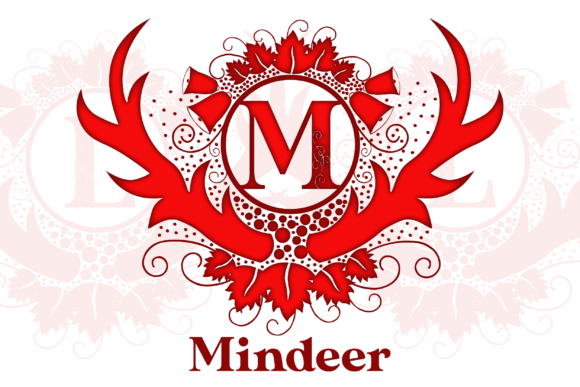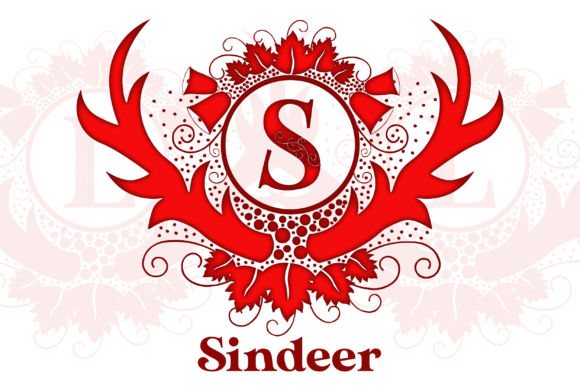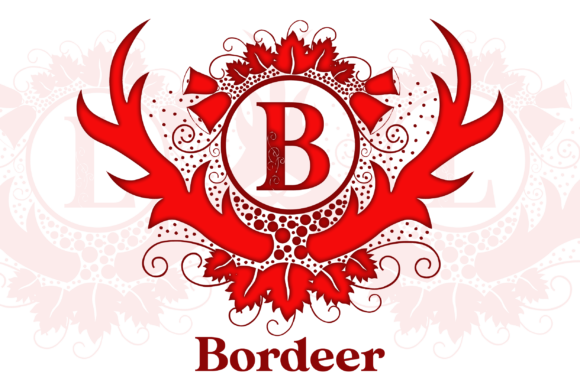
Introduction to Lendeer Font
Lendeer is a festive and highly detailed decorative font, with characters that resemble the antlers of a deer.
Whether you’re looking for fonts for Instagram or calligraphy scripts for DIY projects, this font will turn any creative idea into a true piece of art .
Key Features of Lendeer Font
Why Choose Lendeer Font?
Lendeer Font offers exceptional quality and versatility, making it a valuable addition to your design toolkit. Whether you’re creating for personal projects or commercial use, Lendeer Font delivers professional results.